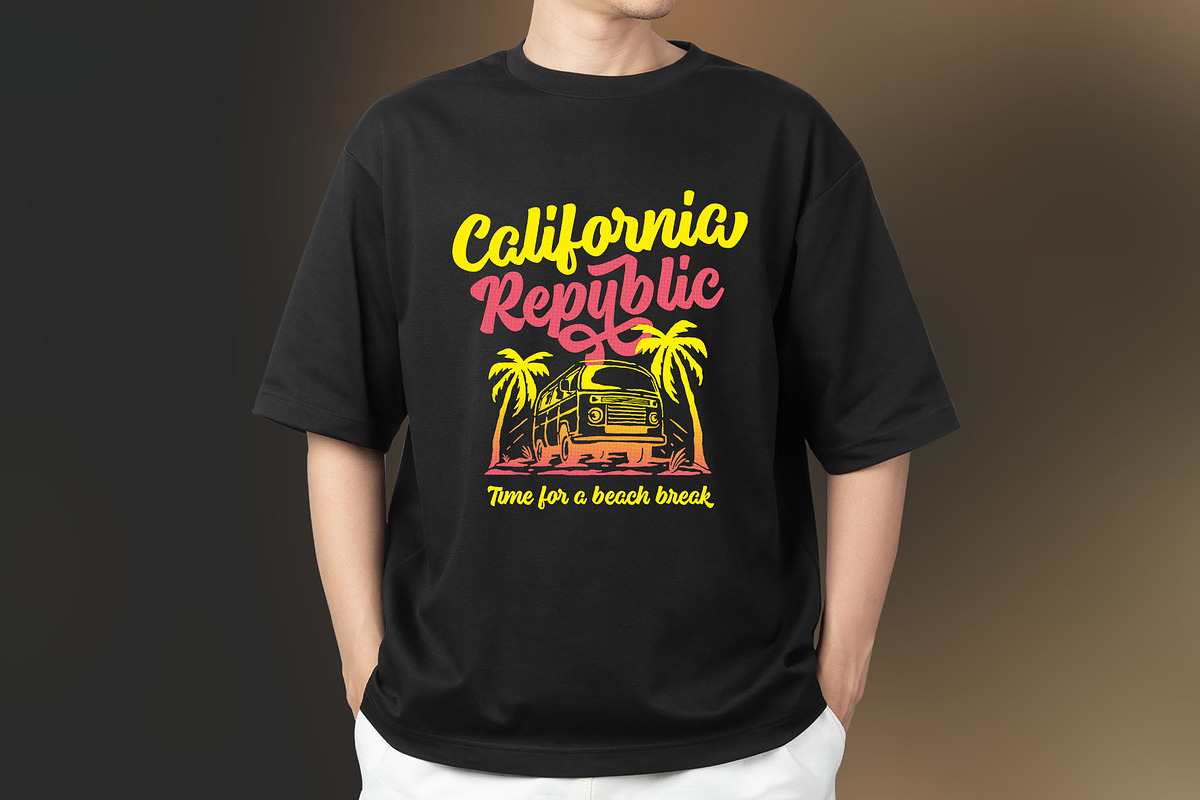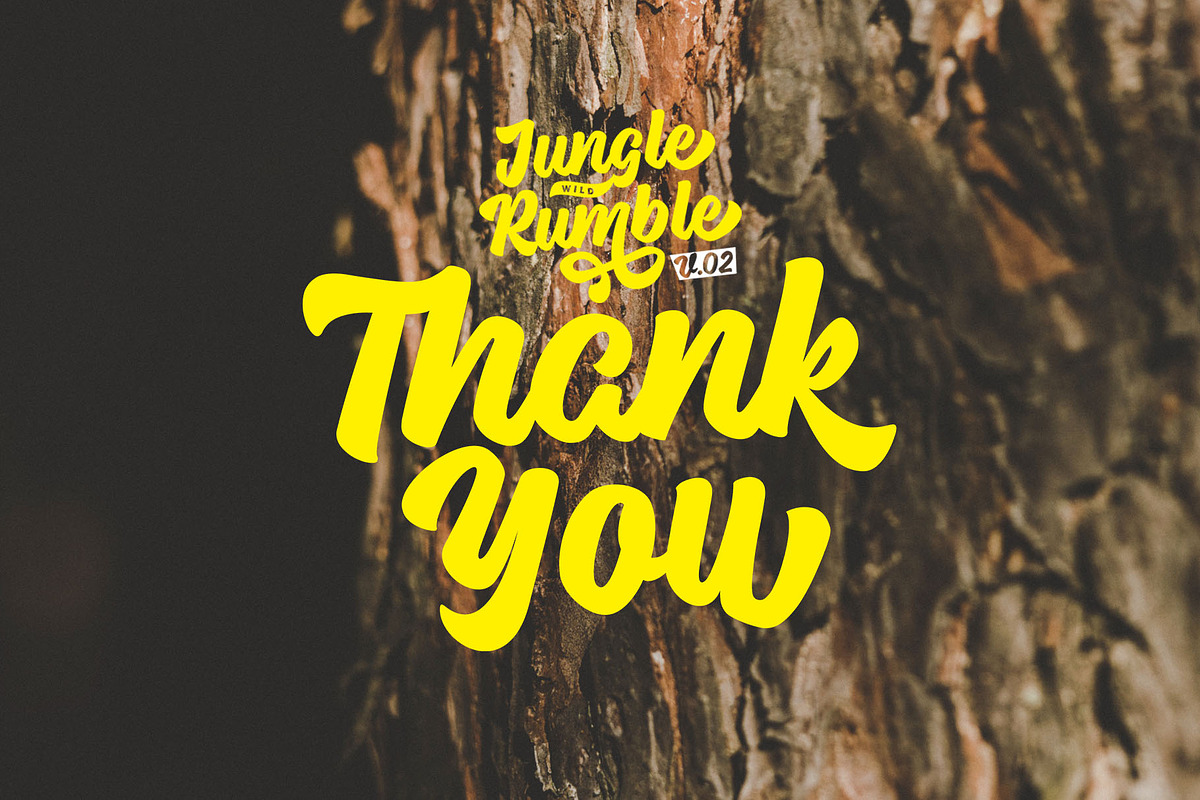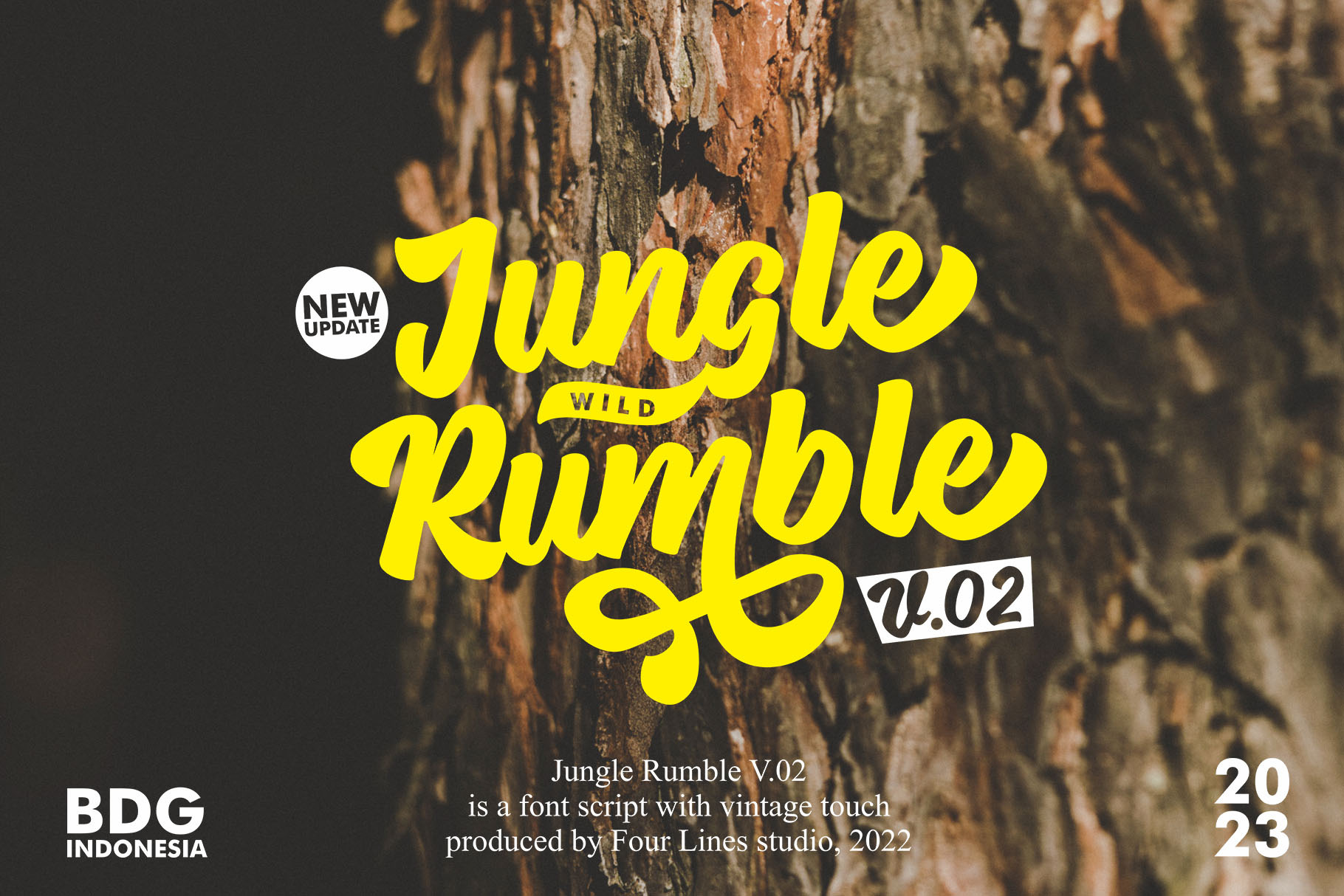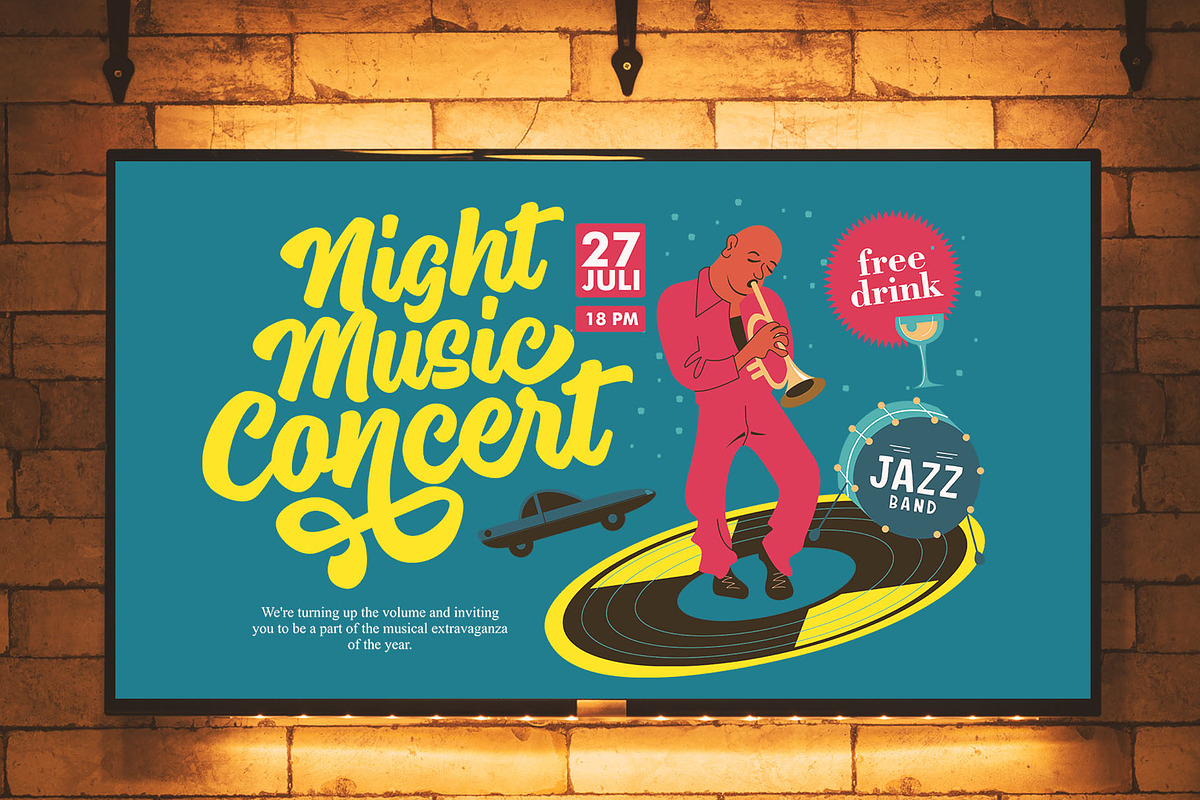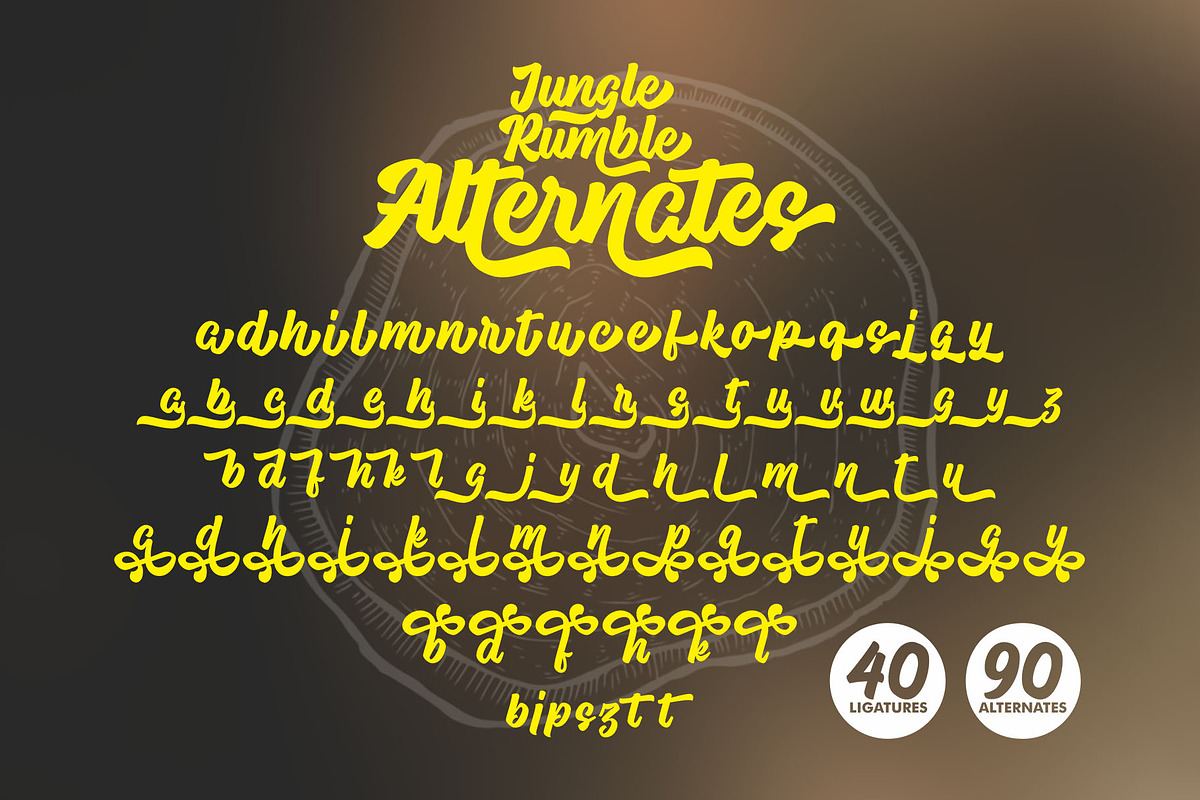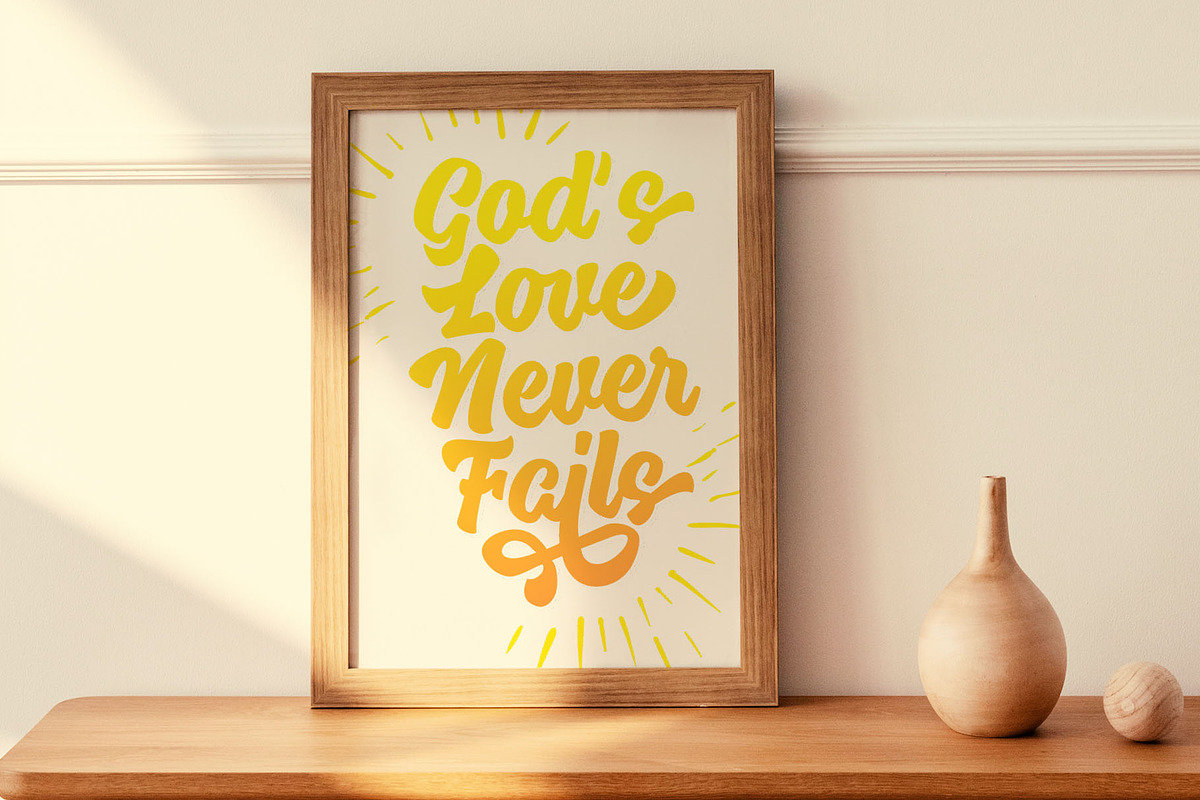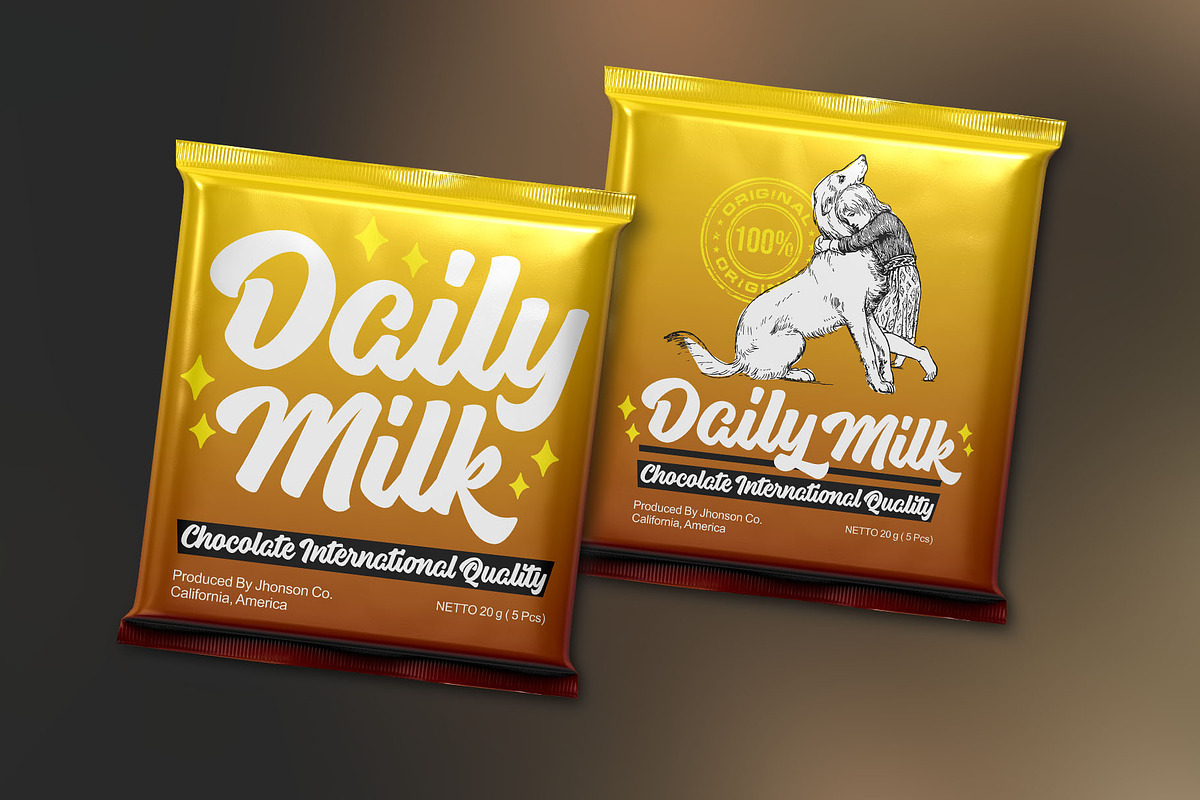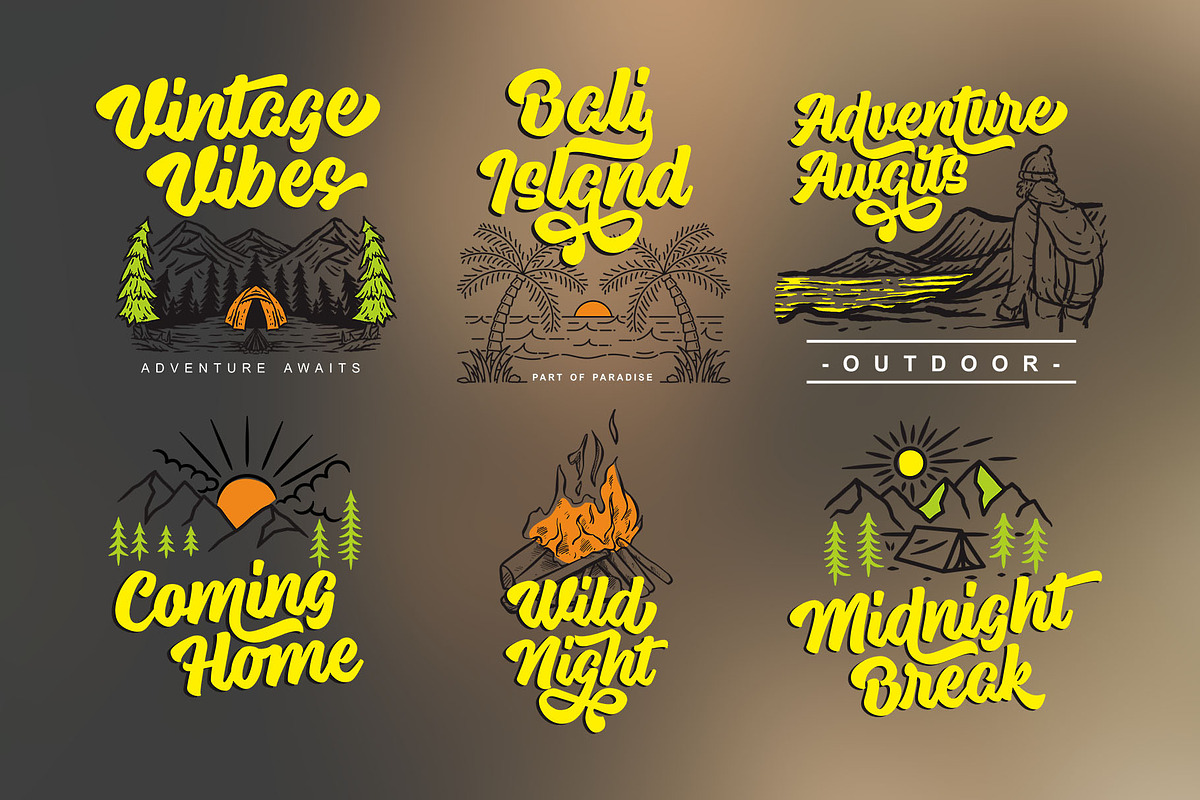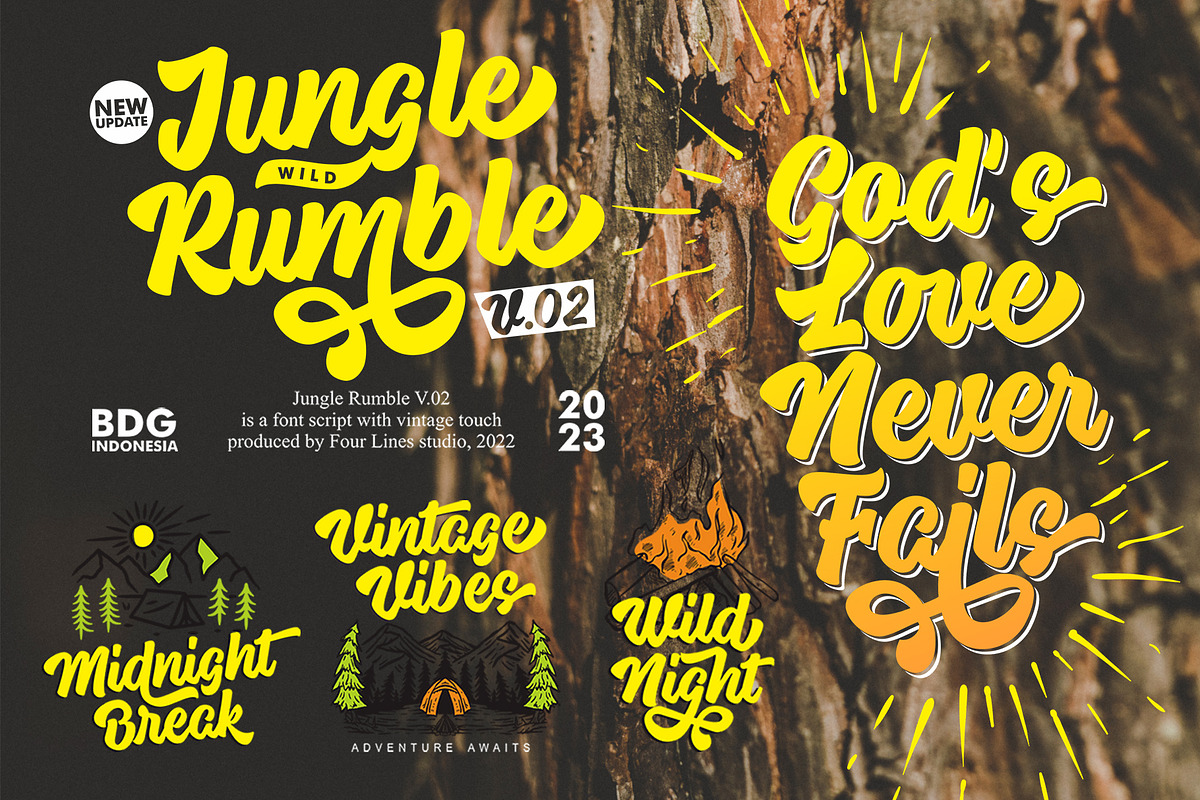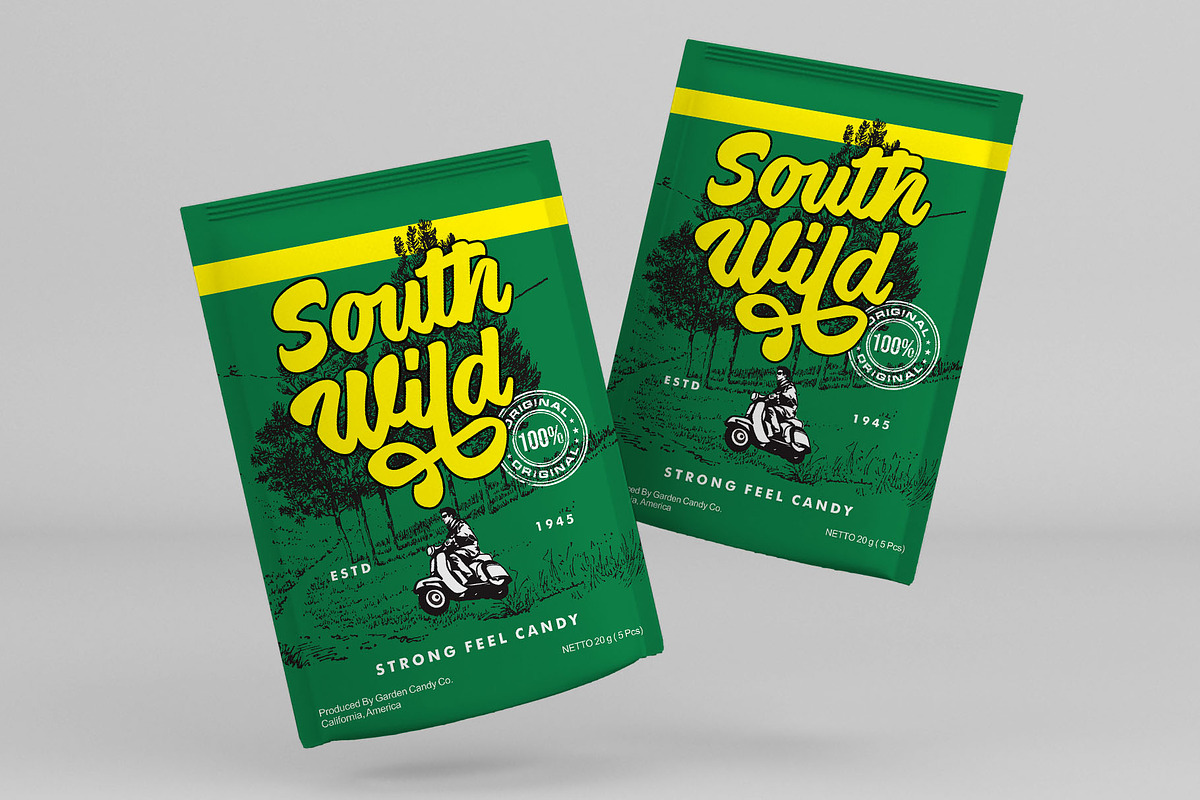
Jungle Rumble - Retro script Font
Introducing Jungle Rumble V.02, where elegance meets classic style with a touch of playfulness. This script font is a must-have for every graphic designer looking to add a unique and captivating element to their projects. With Jungle Rumble V.02, you'll captivate the hearts of your clients and stand out from the crowd. Embrace the jungle-inspired elegance and let this font unleash your creative potential. Grab Jungle Rumble V.02 today and experience the magic of its elegant script with a touch of playfulness. Elevate your designs to new heights and leave a lasting impression on all who encounter your work.